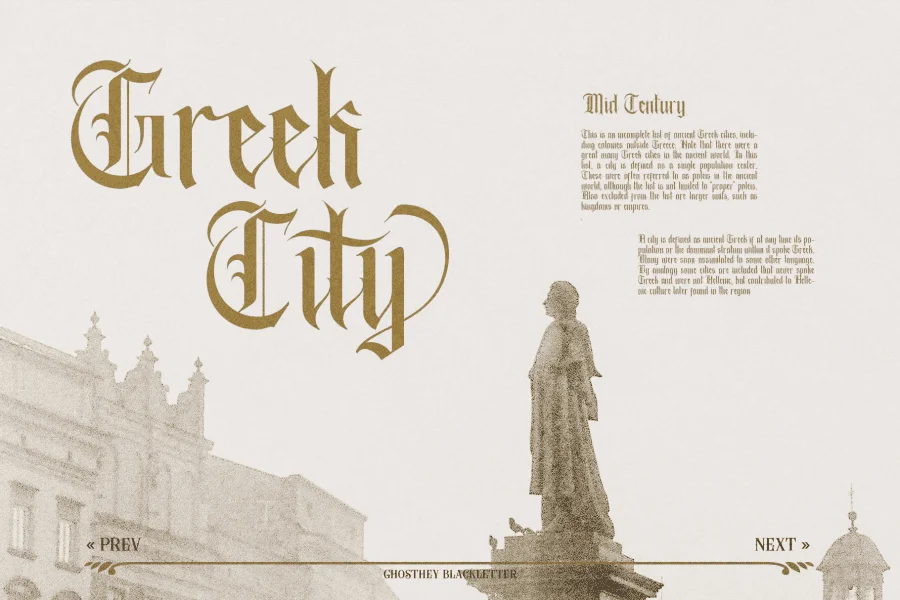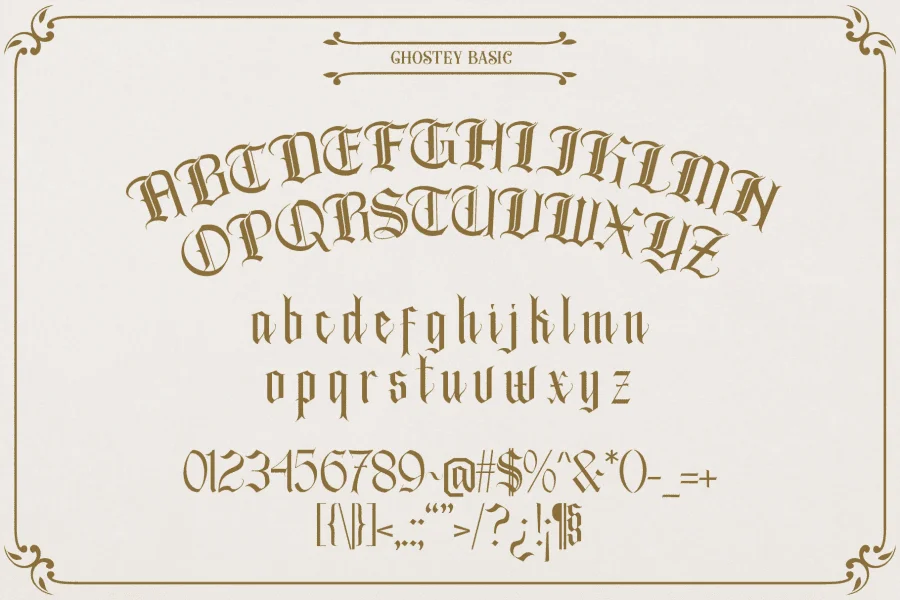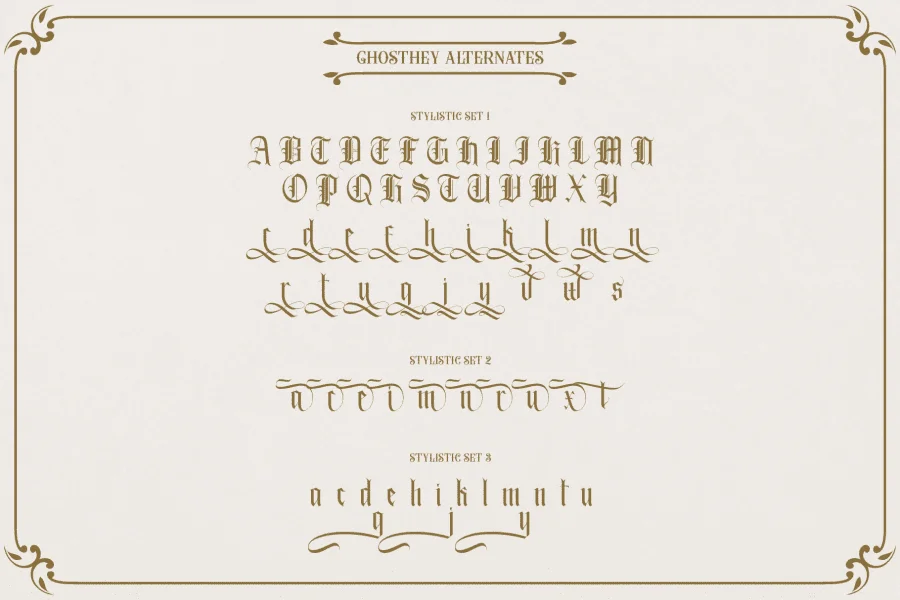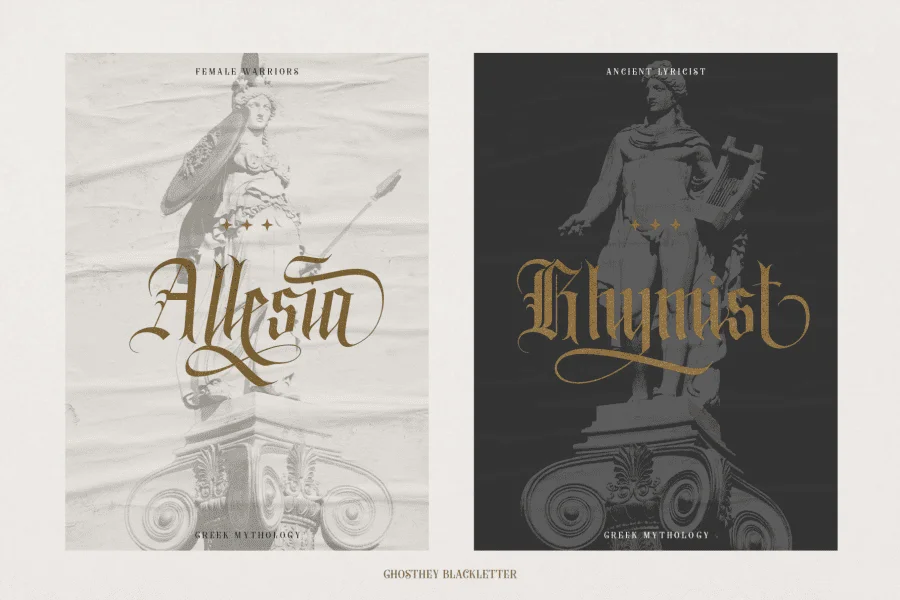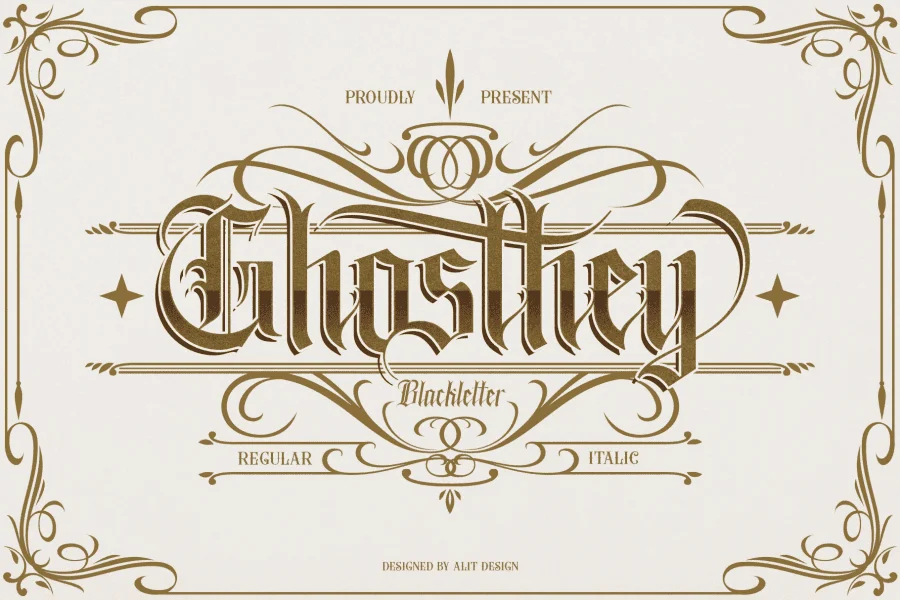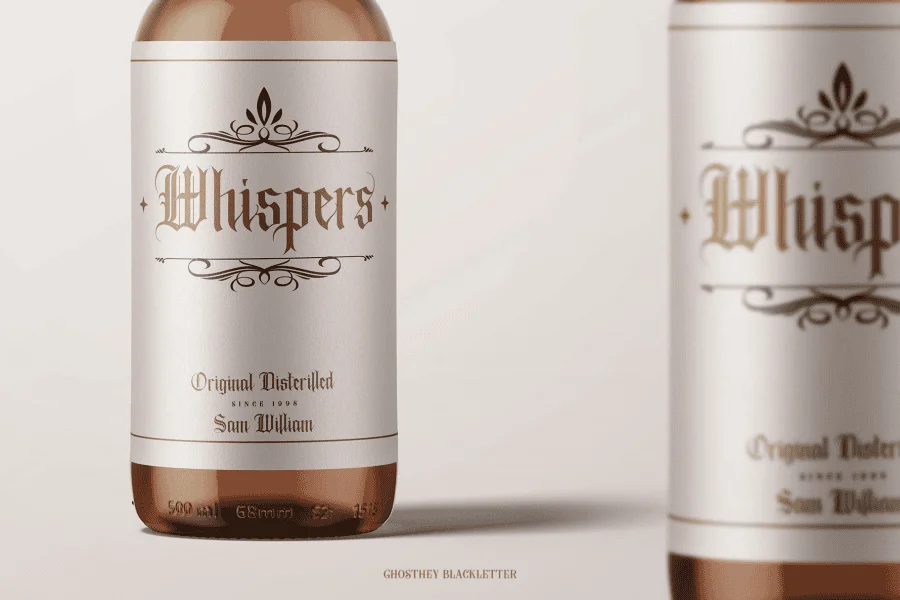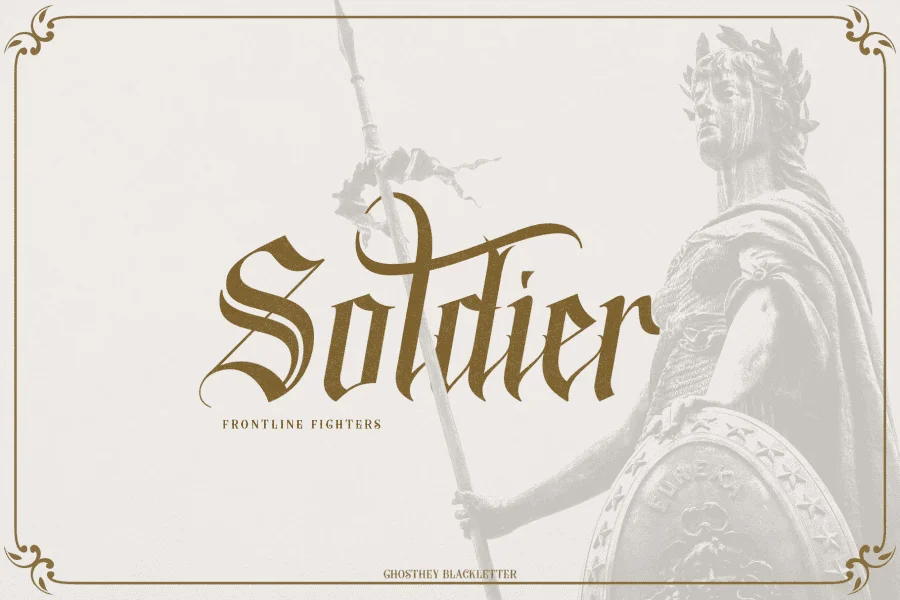
✒️Ghoes Balley Typeface✒️is a font inspired by the Blackletter typeface, made with a modern impression but still looks strong and unique. Supported by alternative options such as swash, ligature and alternative characters, making The Ghoes Balley Typeface Blackletter very easy to create designs with strong or dark themes. In addition, The Ghoes Balley Typeface Blackletter is also supported with multilingual characters that can be used in several international languages.